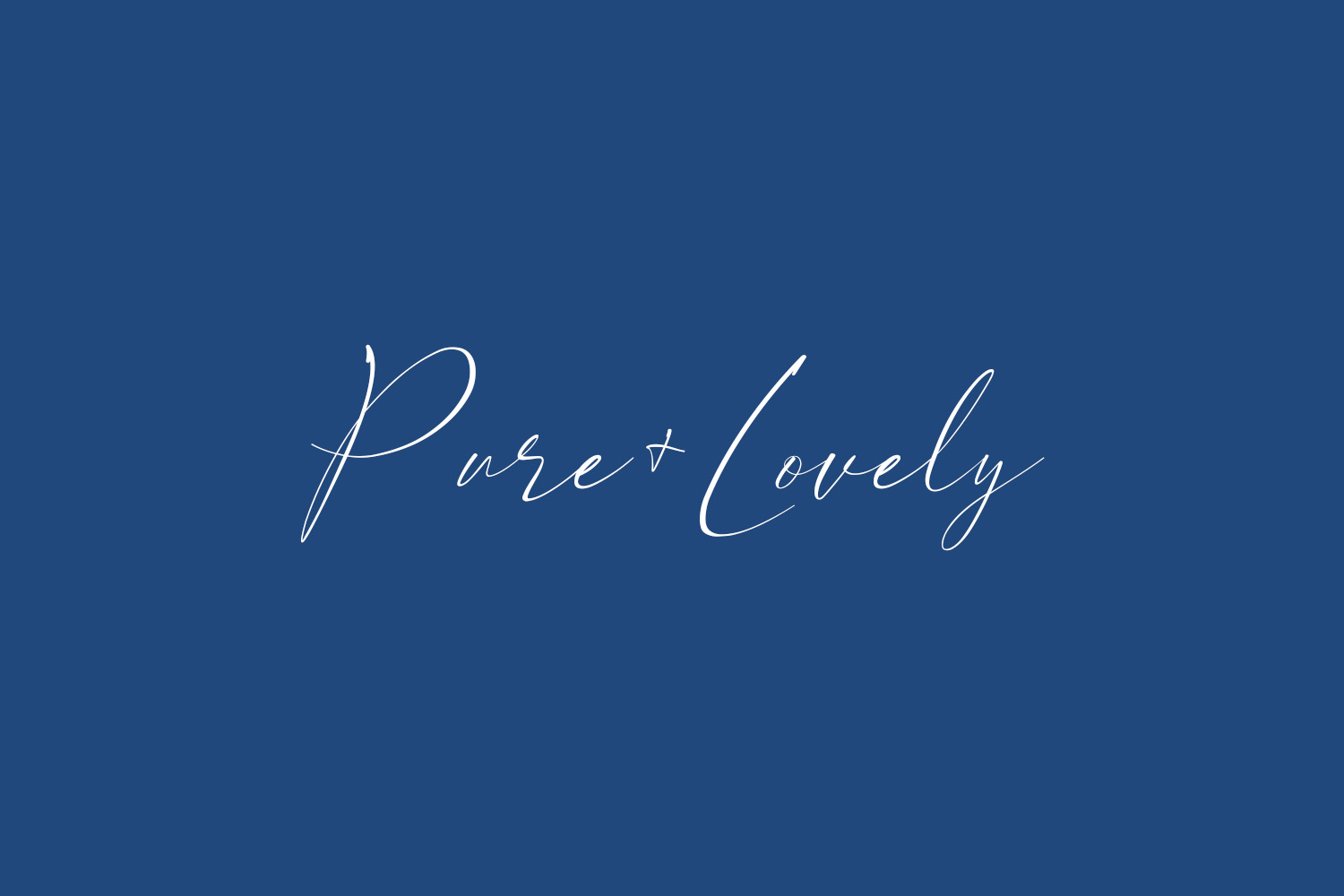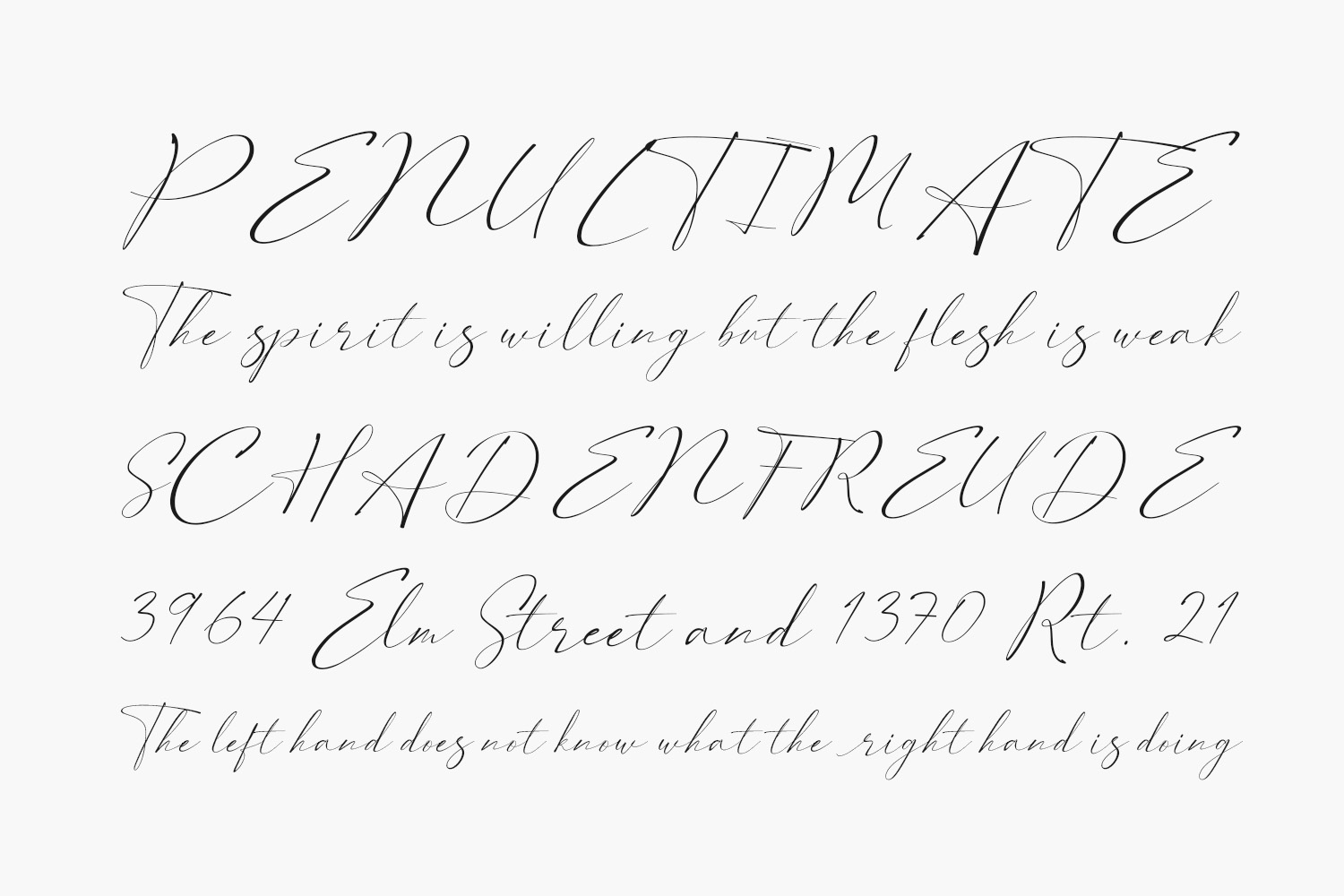
Pure+Lovely Free Font is a thin lettered, elegant, and flowing handwritten font. It maintains its classy calligraphic influences, yet creates a fresh design. Pure+Lovely Free Font was designed by Java Pep and is free for personal use only. Please purchase the full version for commercial use.